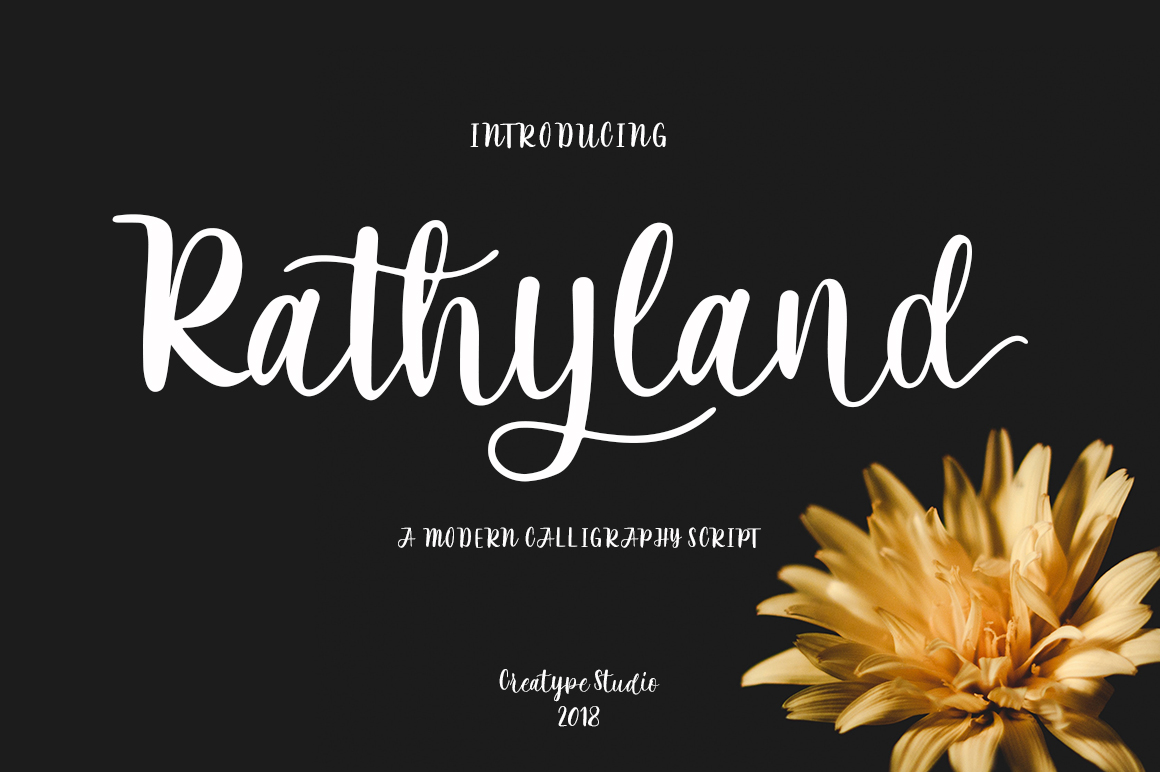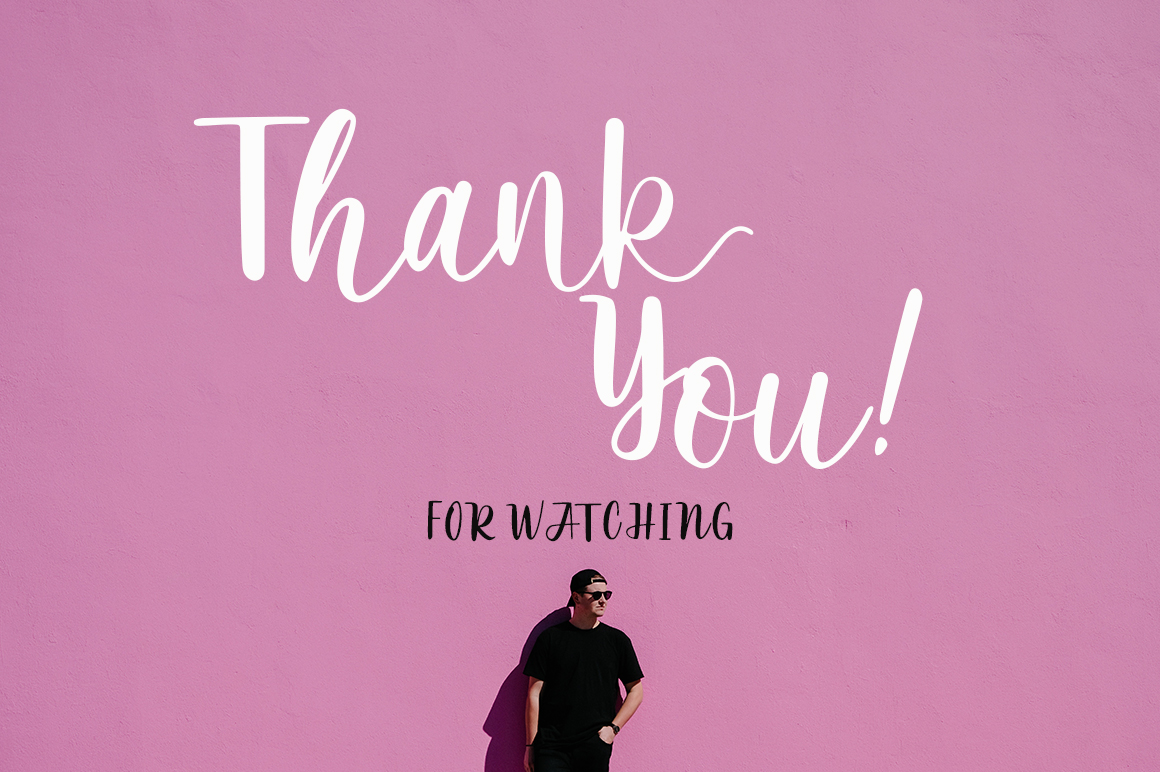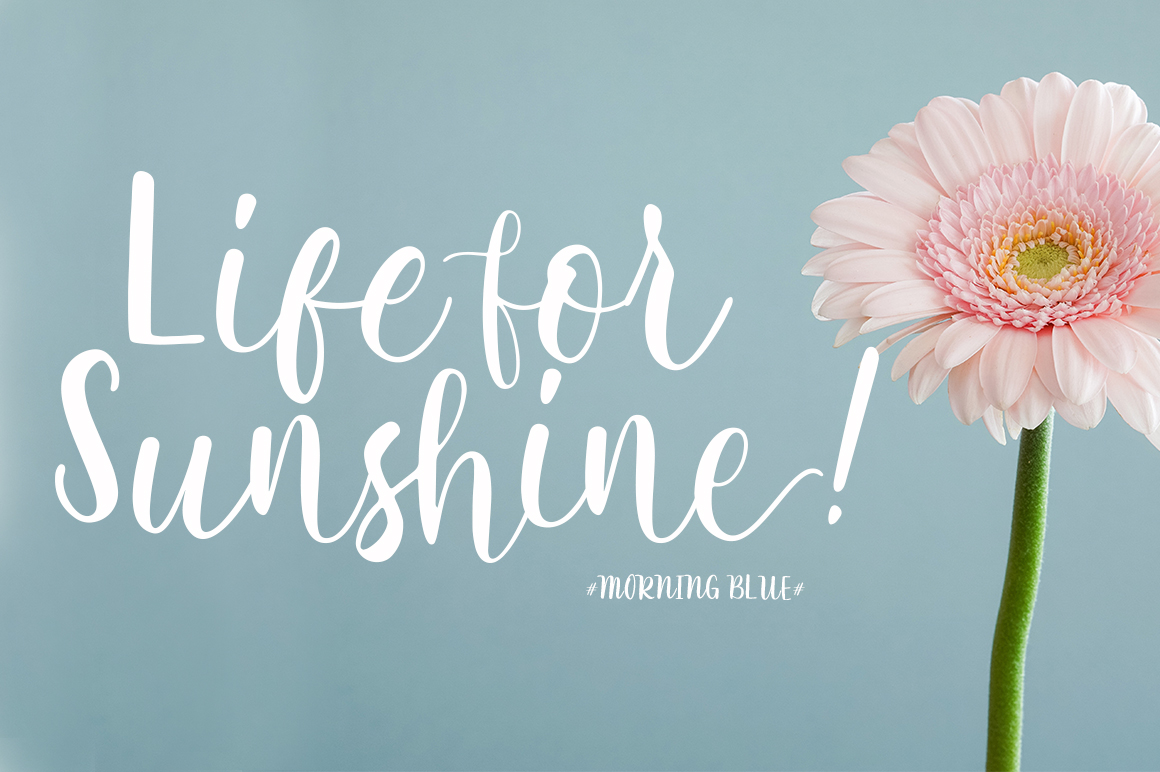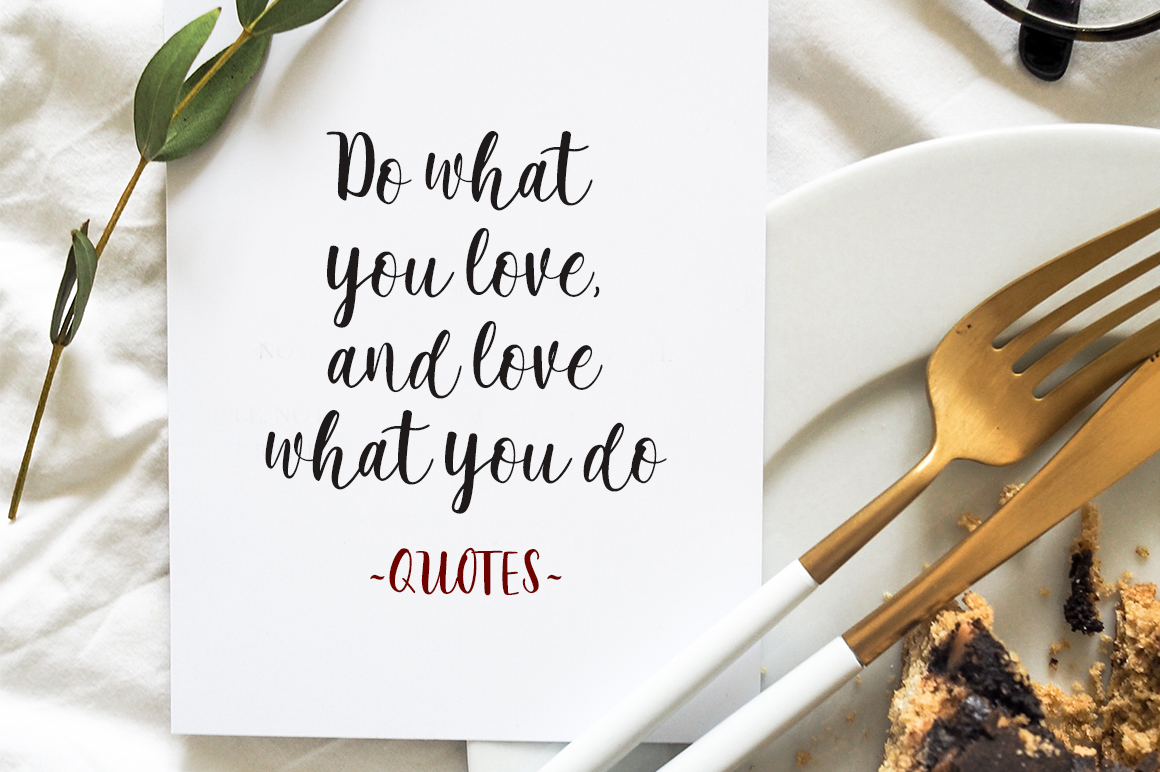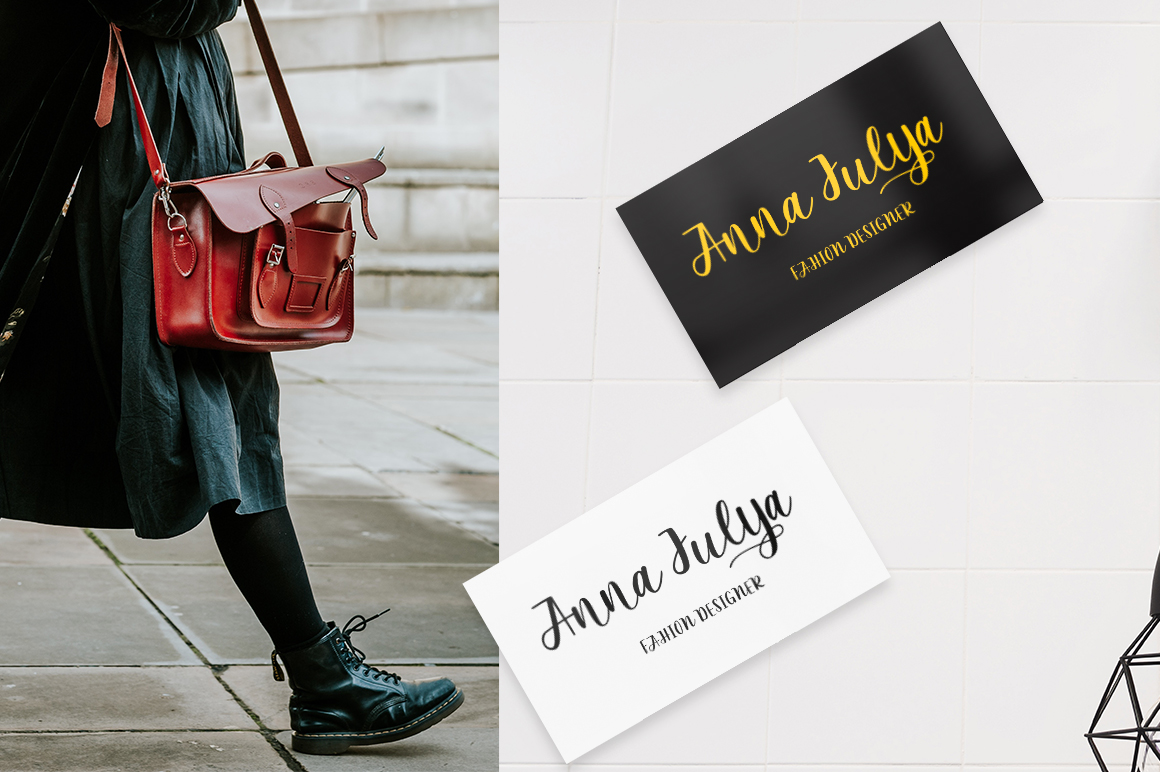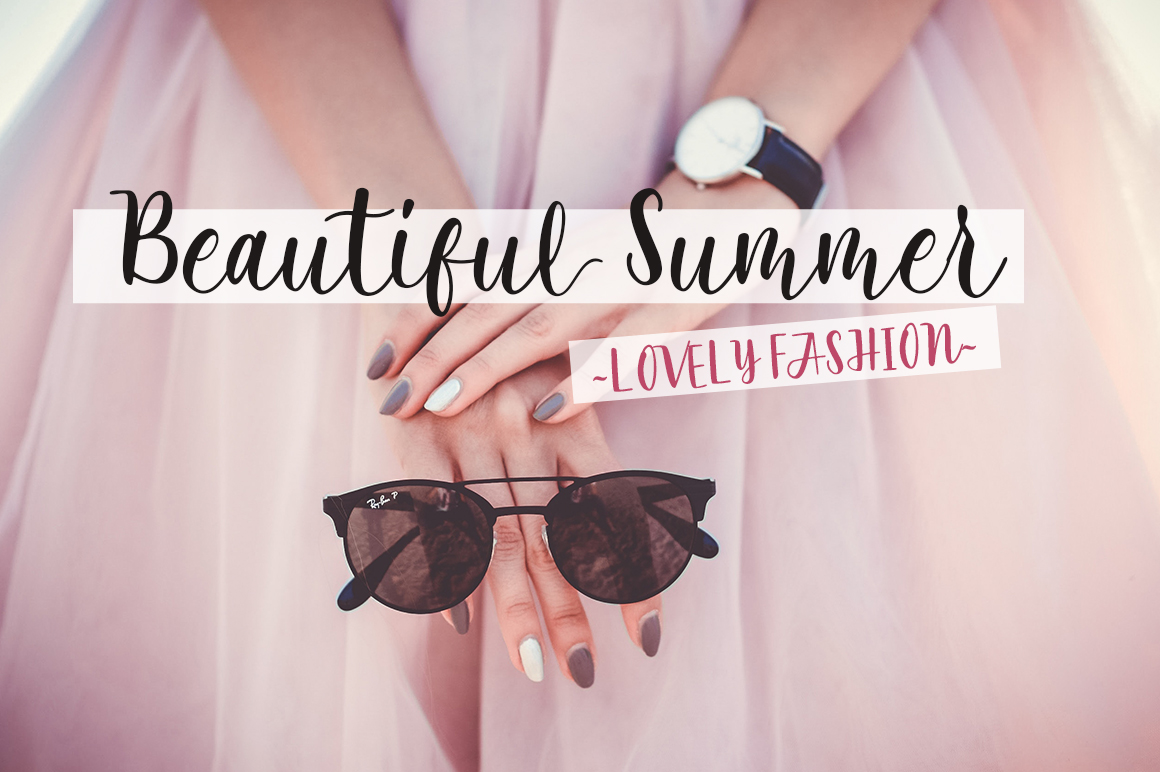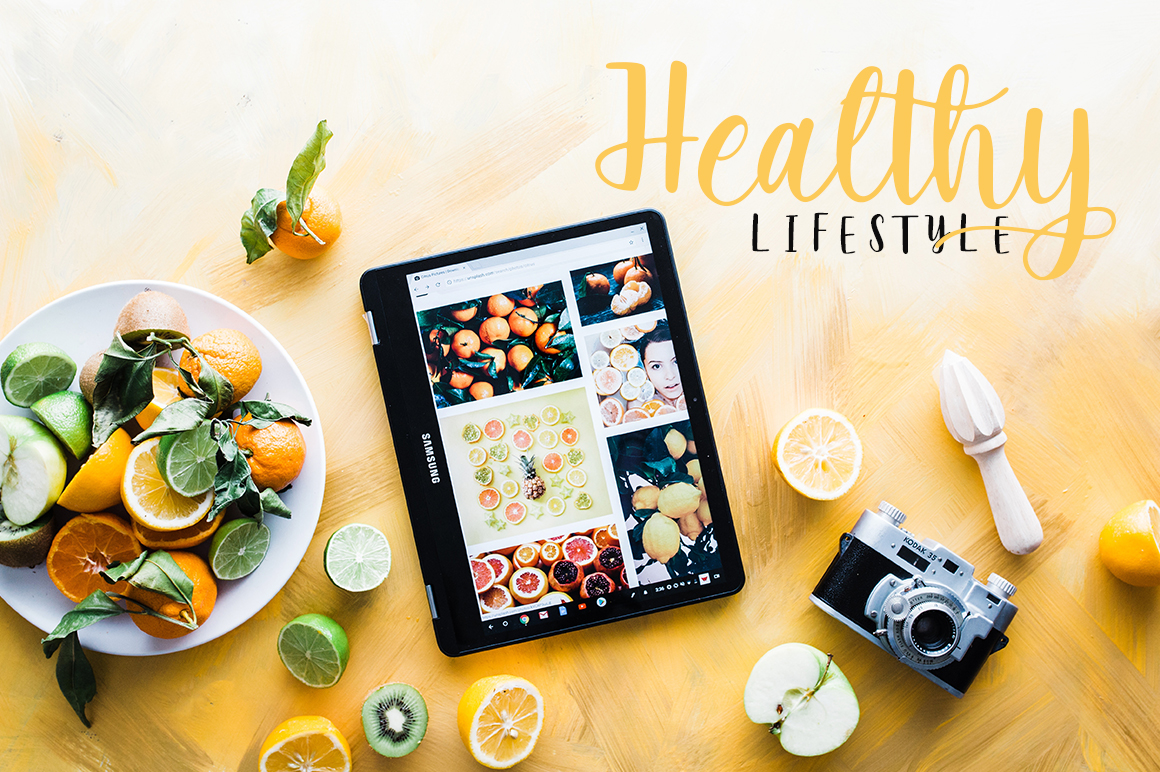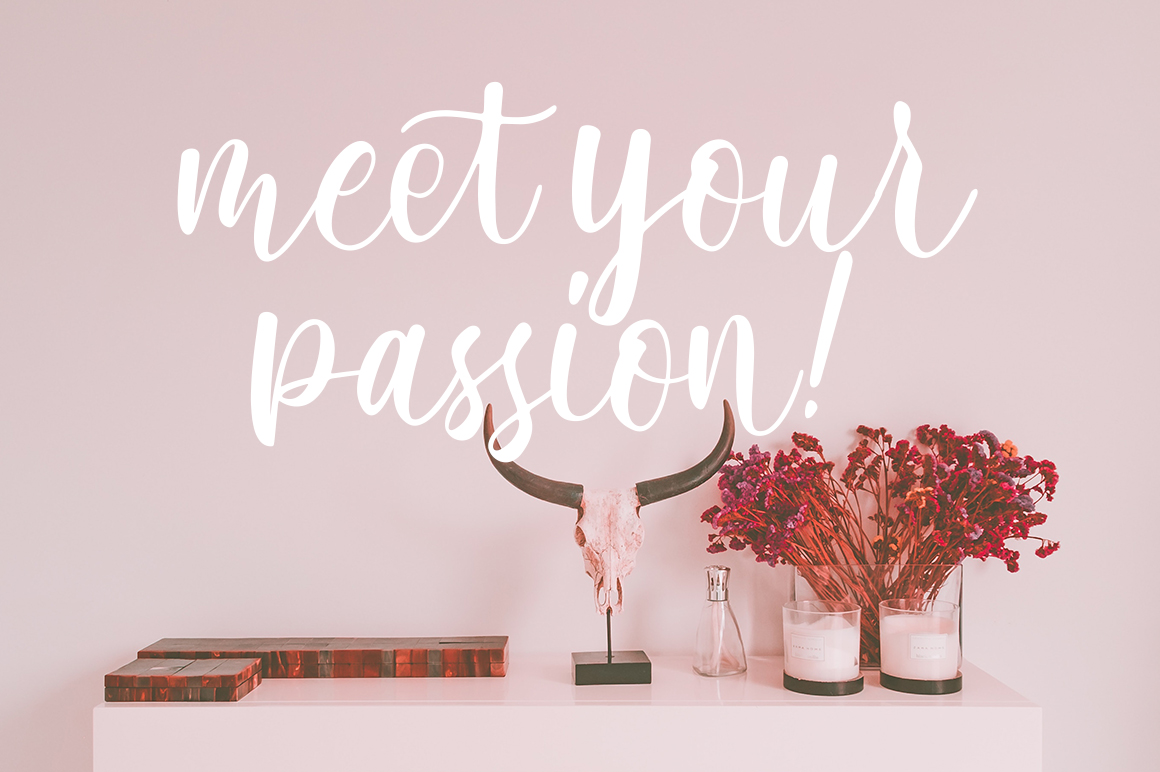
Rathyland Font
About Rathyland Font
Rathyland is a modern calligraphy script with handwritten style that makes this font looks stylish, elegant and natural. This font is ideal for a ton of projects that need a genuine and handwritten appeal.